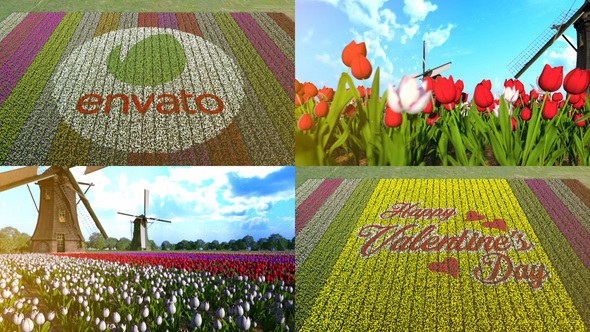
Videohive Field Flowers Typeface and Transition
- Unique animated Field Flower Transitions and Flower Typeface for you projects
- The After Effects template collection contains 20 transition scenes with 5 different variations
- The Flower Typeface includes english alphabet from A – Z, numbers from 0 – 9 and 22 signs